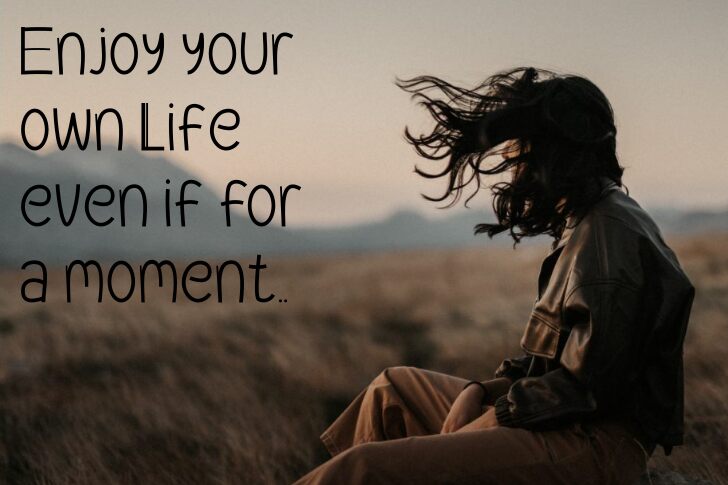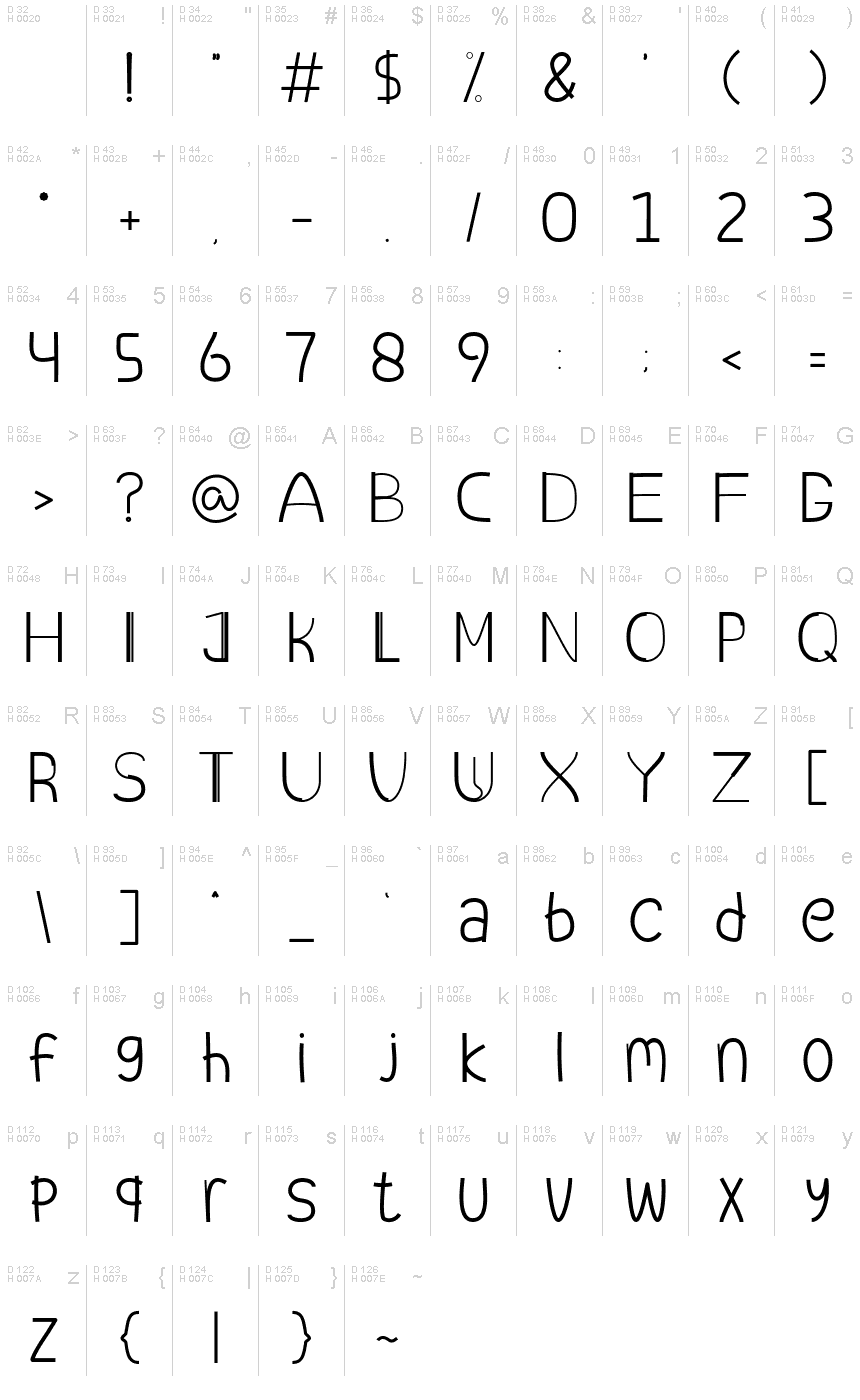
QEMAREN
Qemaren font is an inspiring display font designed by Cocoriscranjy.
This handwritten font is suitable for quotes, lettering, printing, logo, and more. I hope you like it.